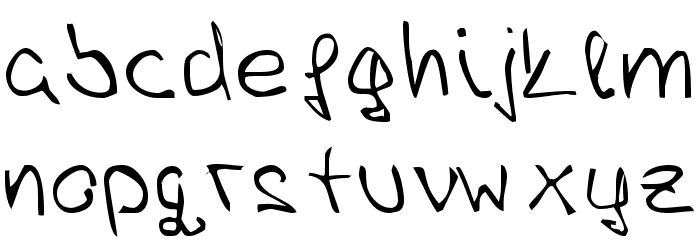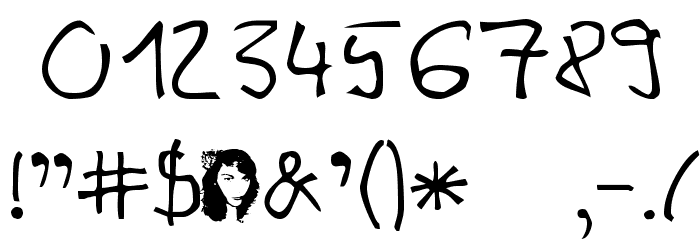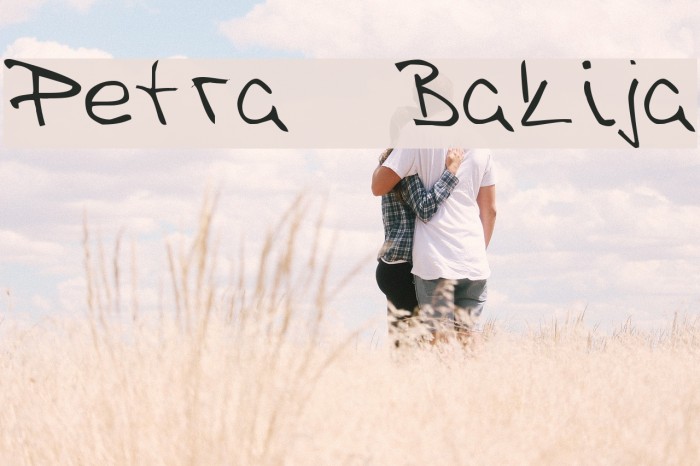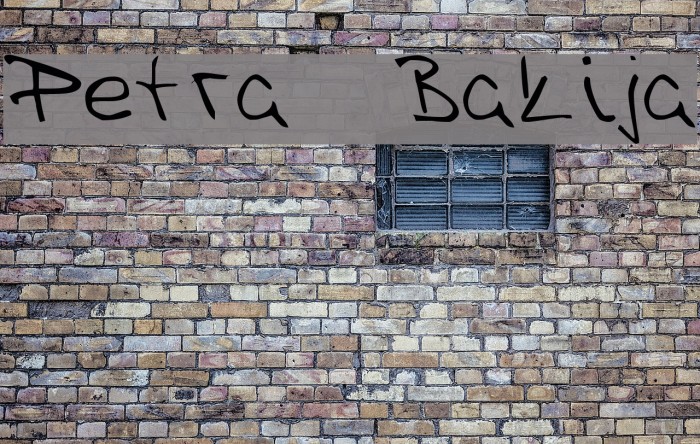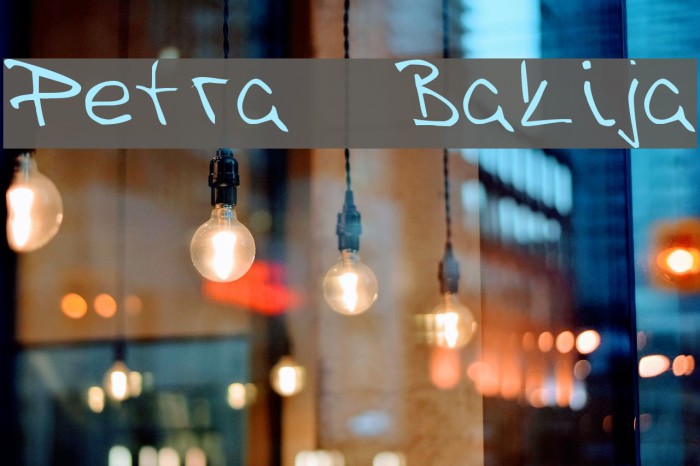
Petra Bakija Font
This font features a playful, handwritten style with a casual and artistic flair. The letters are slightly irregular, giving it a personal and informal touch. The strokes are uneven, adding to the hand-drawn aesthetic, and the characters have a whimsical quality that makes them stand out. The uppercase and lowercase letters maintain a consistent style, while the numbers and special characters complement the overall design. This font is ideal for projects that require a touch of creativity and individuality.
A playful, handwritten font with an artistic and whimsical style.
- Proposed Projects: Ideal for greeting cards, invitations, personal branding, and creative projects that require a unique and informal touch.
- Category: Handwritten
- Use Case: Logos, Invitations, Creative projects